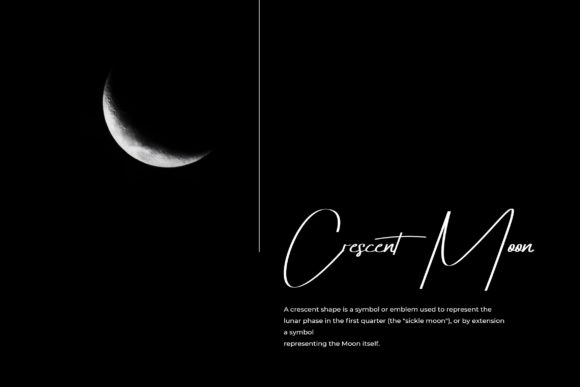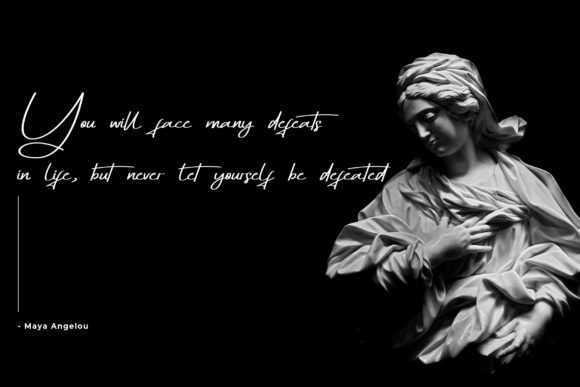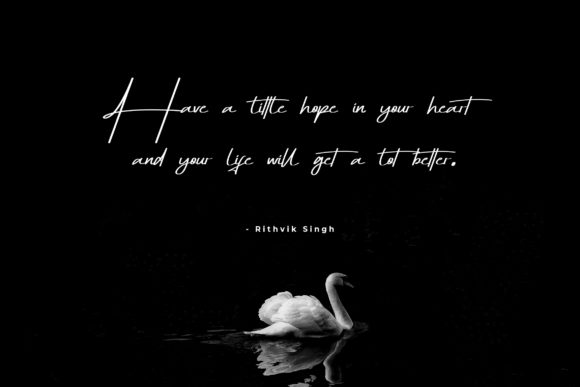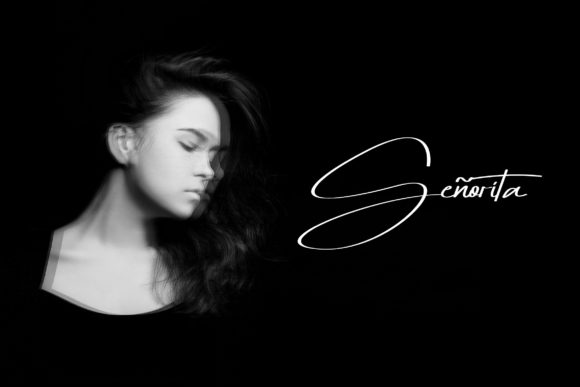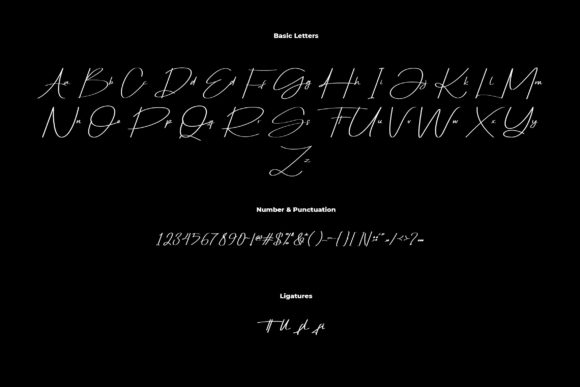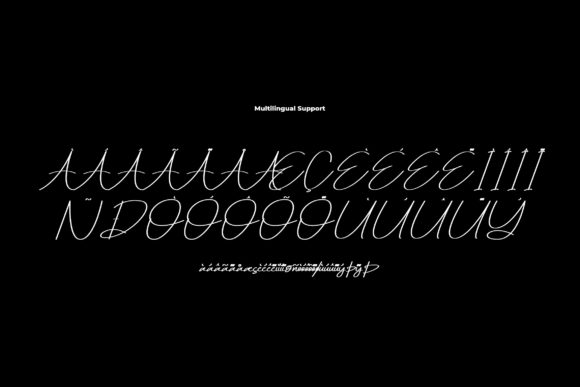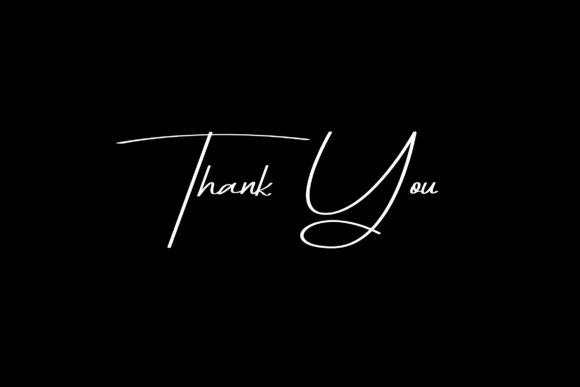
Honofly Font
“Honofly”: Elevate Your Designs with a Signature Font of Natural Elegance
Presenting “Honofly,” a signature font that effortlessly combines natural lines to evoke a sense of seriousness, elegance, classicism, and creativity. This font is more than just a typeface; it’s a design element that adds a touch of sophistication to your crafts, book covers, signatures, wordmarks, and more.
The beauty of “Honofly” lies in its seamless blend of natural lines, creating an impression that is both refined and timeless. The natural flow of the characters gives the font a genuine and handcrafted feel, making it a perfect choice for a wide range of applications. Whether you’re working on a book cover, crafting your signature, or designing a wordmark for your brand, “Honofly” brings a sense of authenticity and class to your project.
One of the notable qualities of “Honofly” is its ability to convey seriousness. The clean and well-defined lines of each letter contribute to a professional and composed look, making it an excellent choice for documents, business cards, and any design where a touch of formality is required. The font’s seriousness is balanced by an underlying elegance, creating a harmonious visual experience that captivates without being overly ornate.
The classic charm of “Honofly” makes it versatile for various design needs. It lends itself gracefully to crafts, adding an extra layer of sophistication to handmade creations. Whether you’re personalizing gifts or creating custom stationery, this font ensures a touch of timeless elegance. Its adaptability extends to wordmarks, where it becomes the visual embodiment of your brand’s enduring identity.
For book covers, “Honofly” brings a unique combination of creativity and classicism. The font’s natural lines add a human touch to the design, making it more relatable and engaging for readers. It strikes a balance between creativity and tradition, ensuring that your book cover stands out while conveying a sense of literary refinement.
In summary, “Honofly” is a signature font that goes beyond aesthetics; it tells a story of seriousness, elegance, classicism, and creativity. It serves as a versatile tool for designers, allowing them to infuse projects with a timeless and authentic quality. Whether you’re working on crafts, book covers, signatures, or wordmarks, “Honofly” is the key to achieving a perfect blend of natural elegance and visual impact.